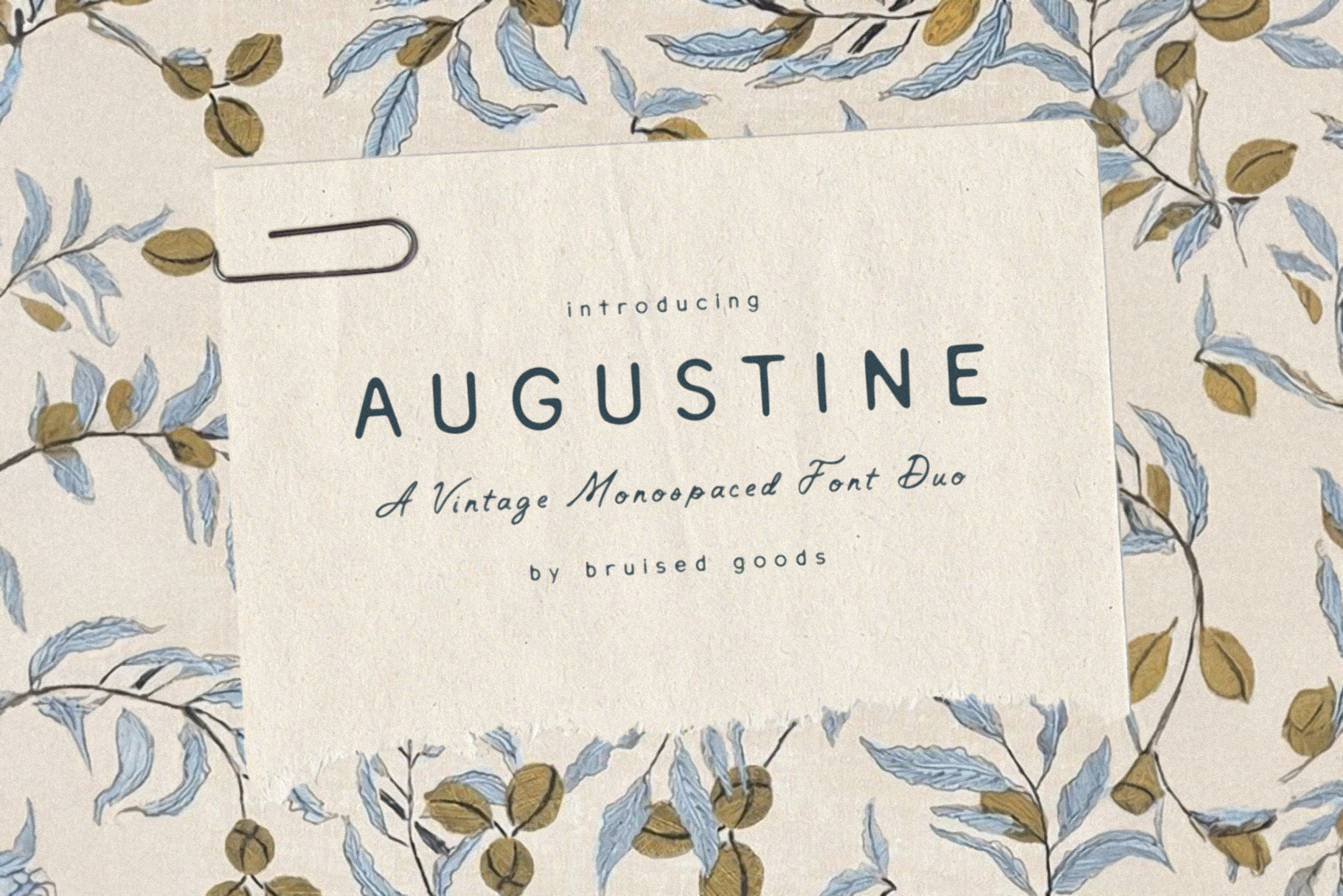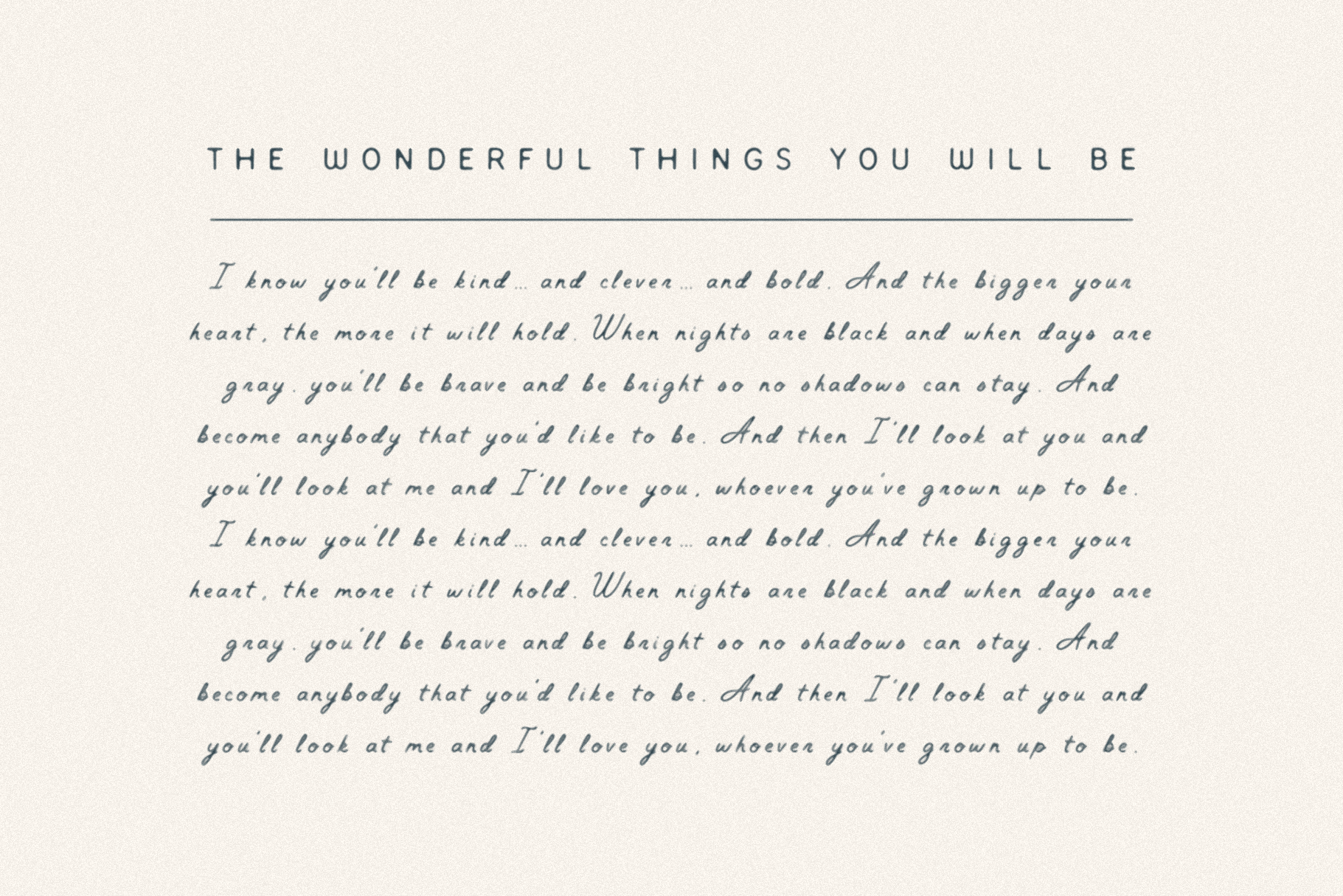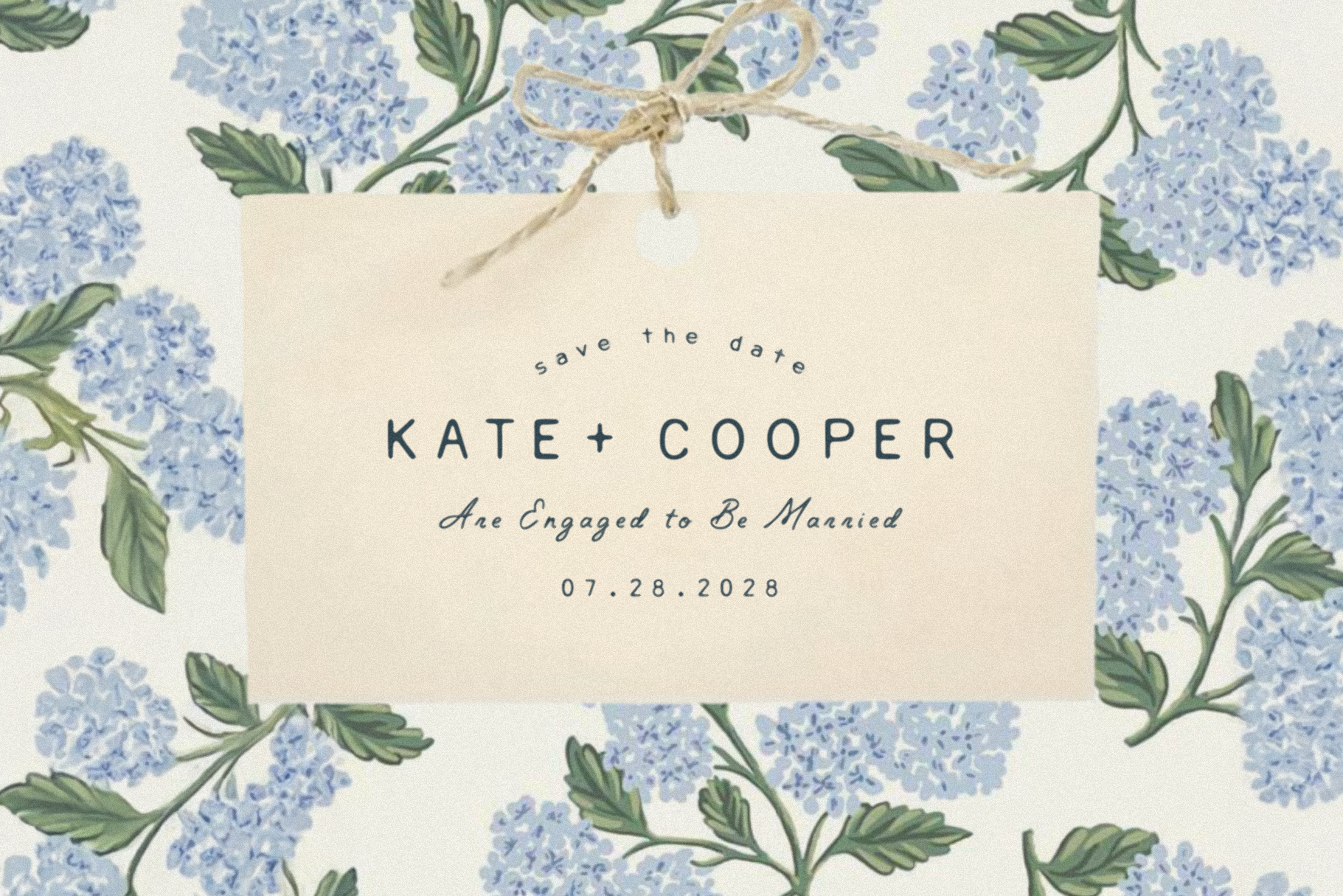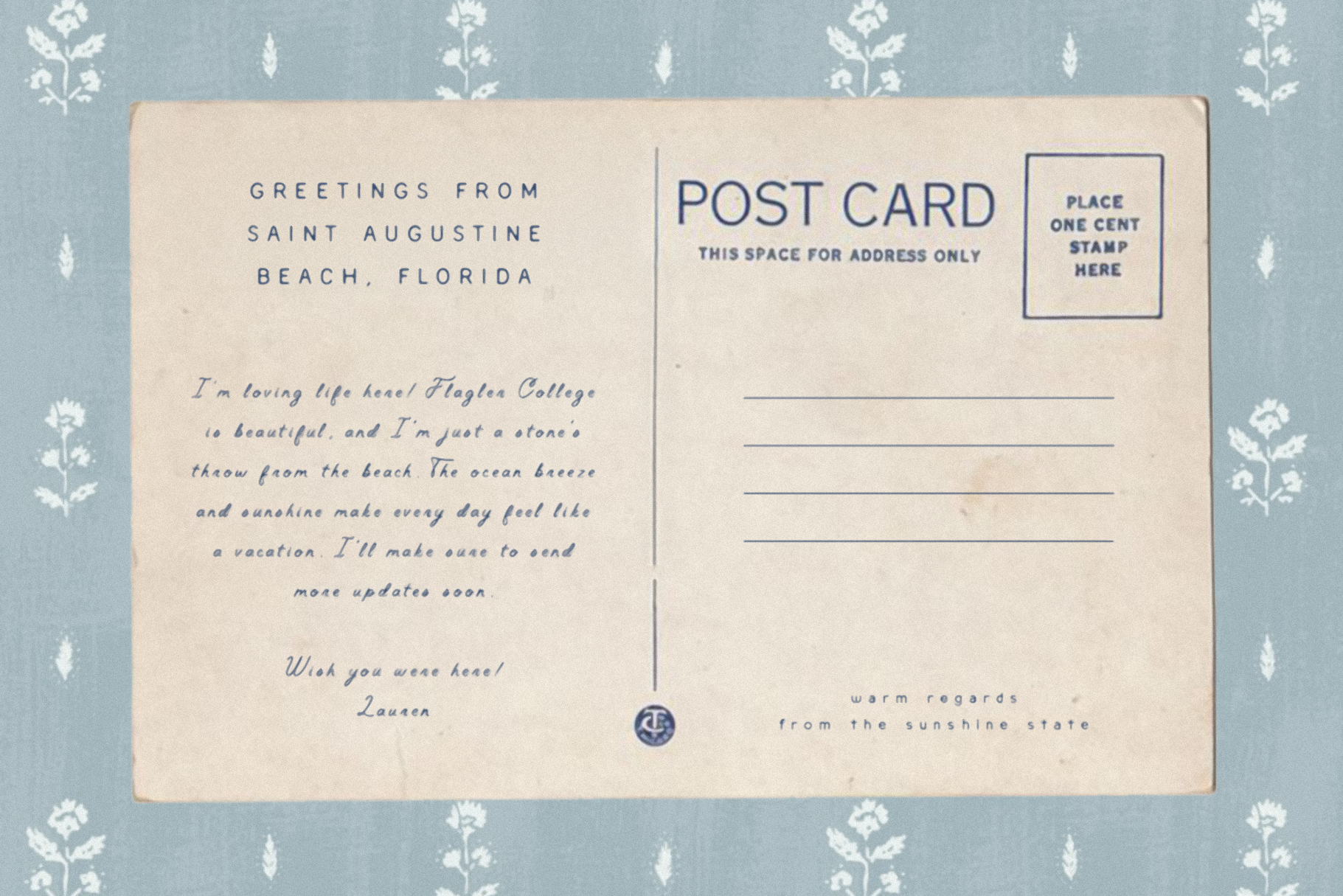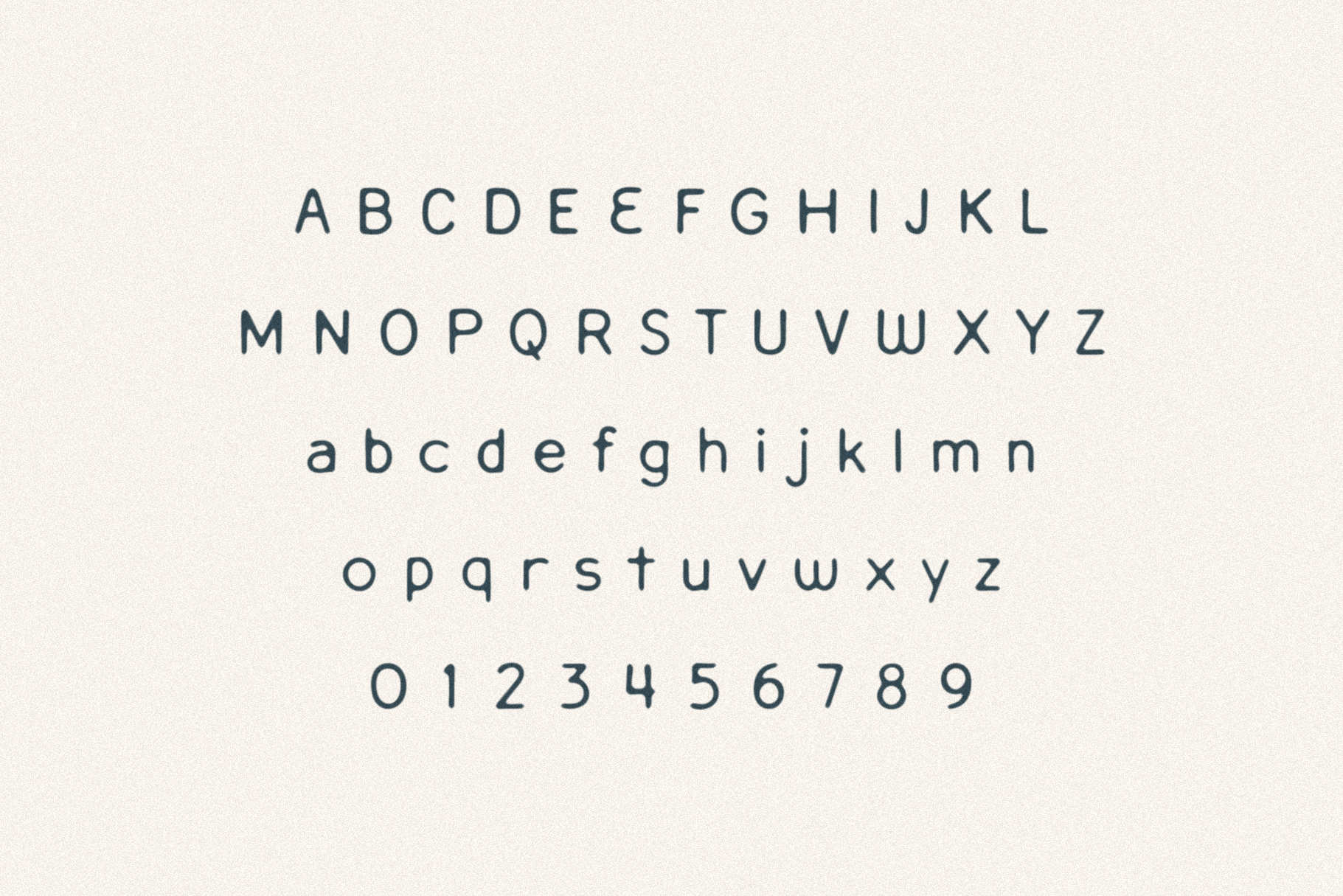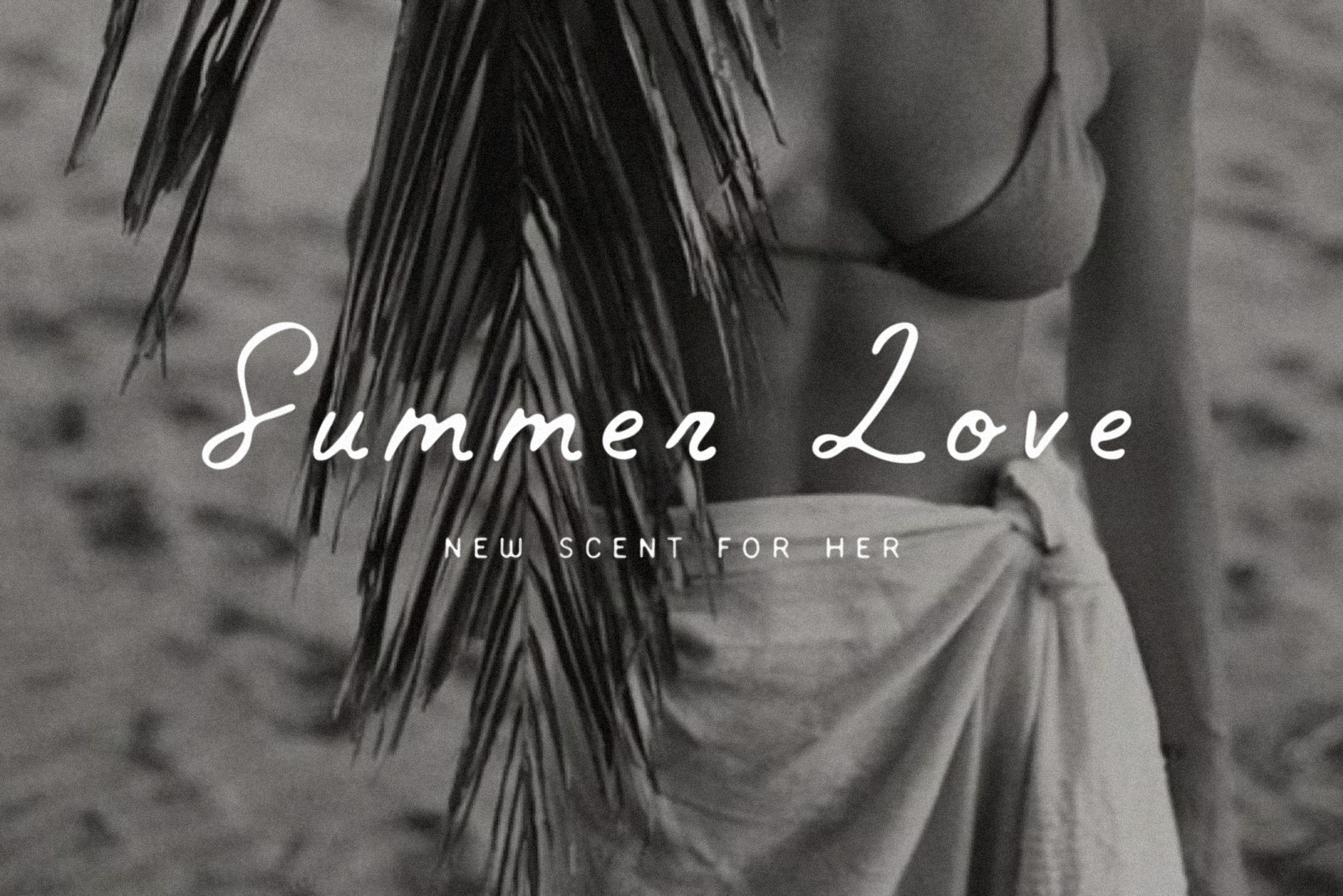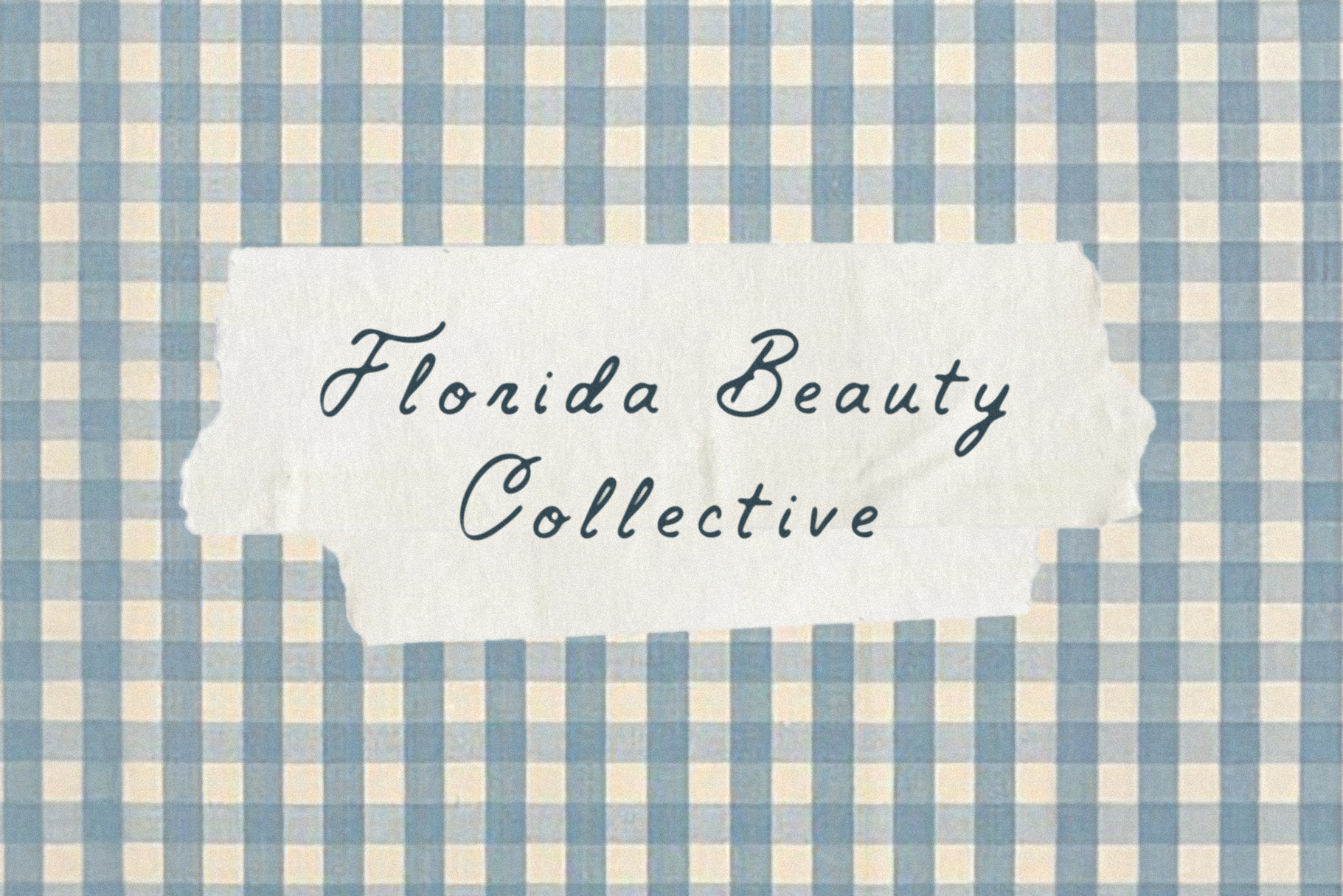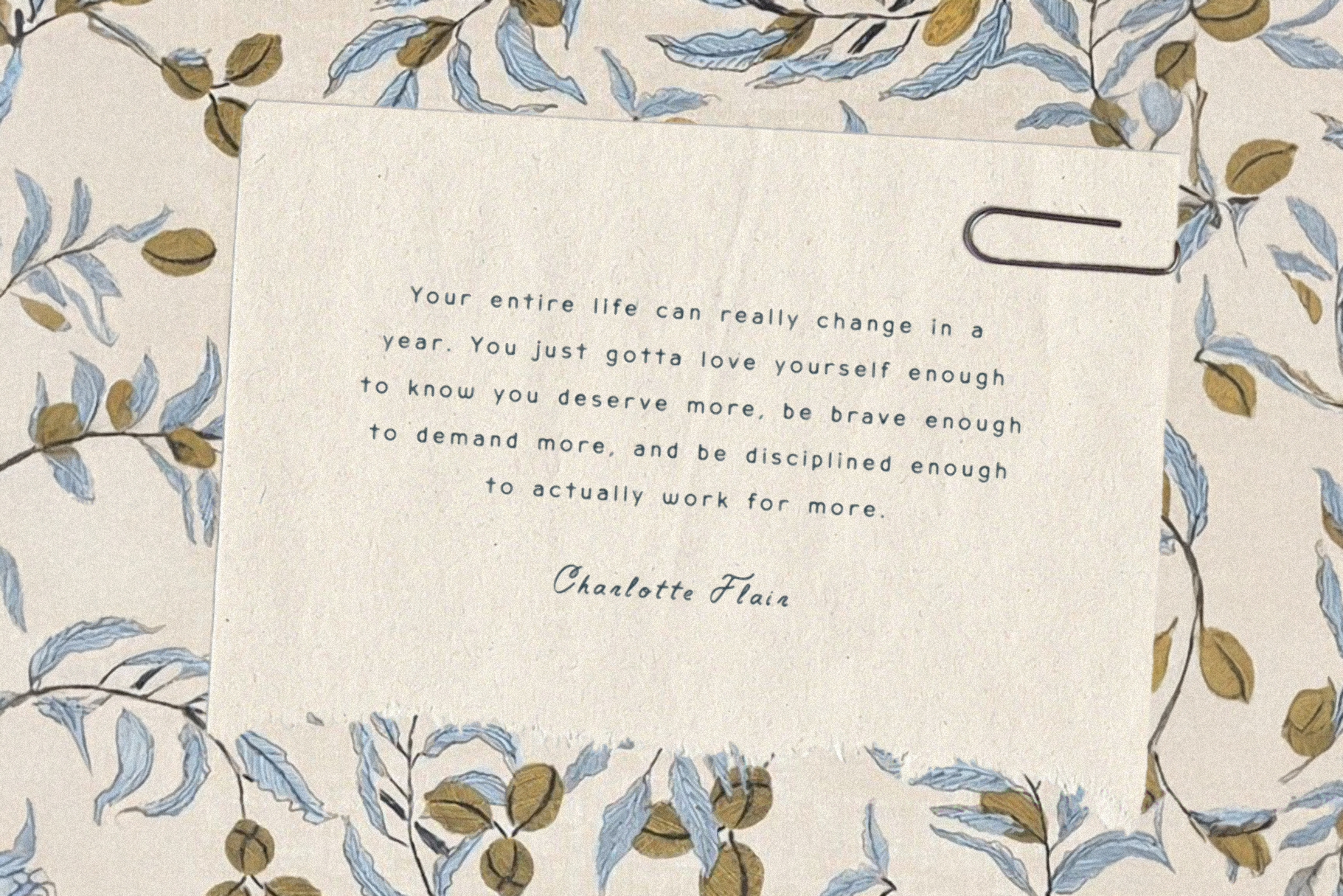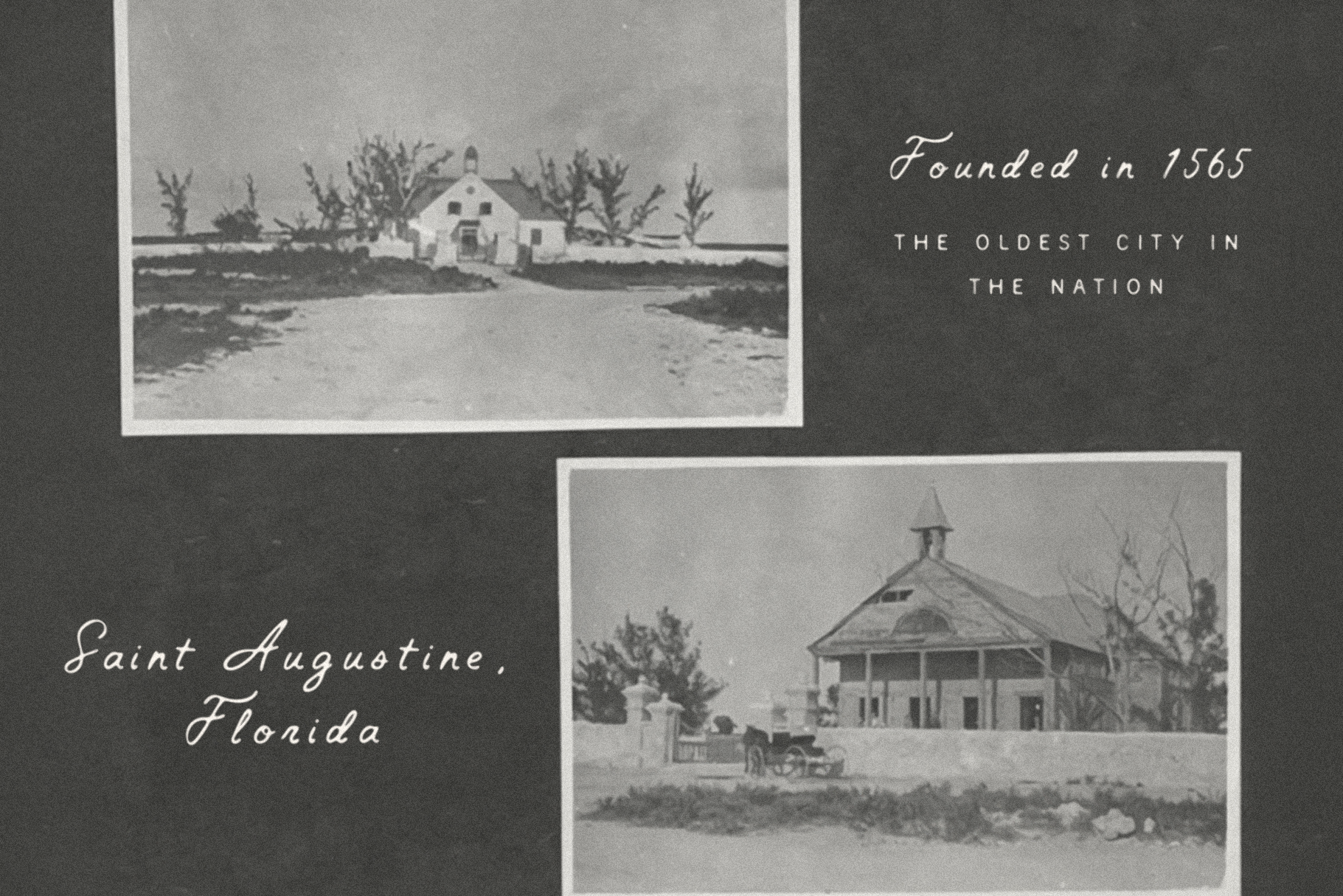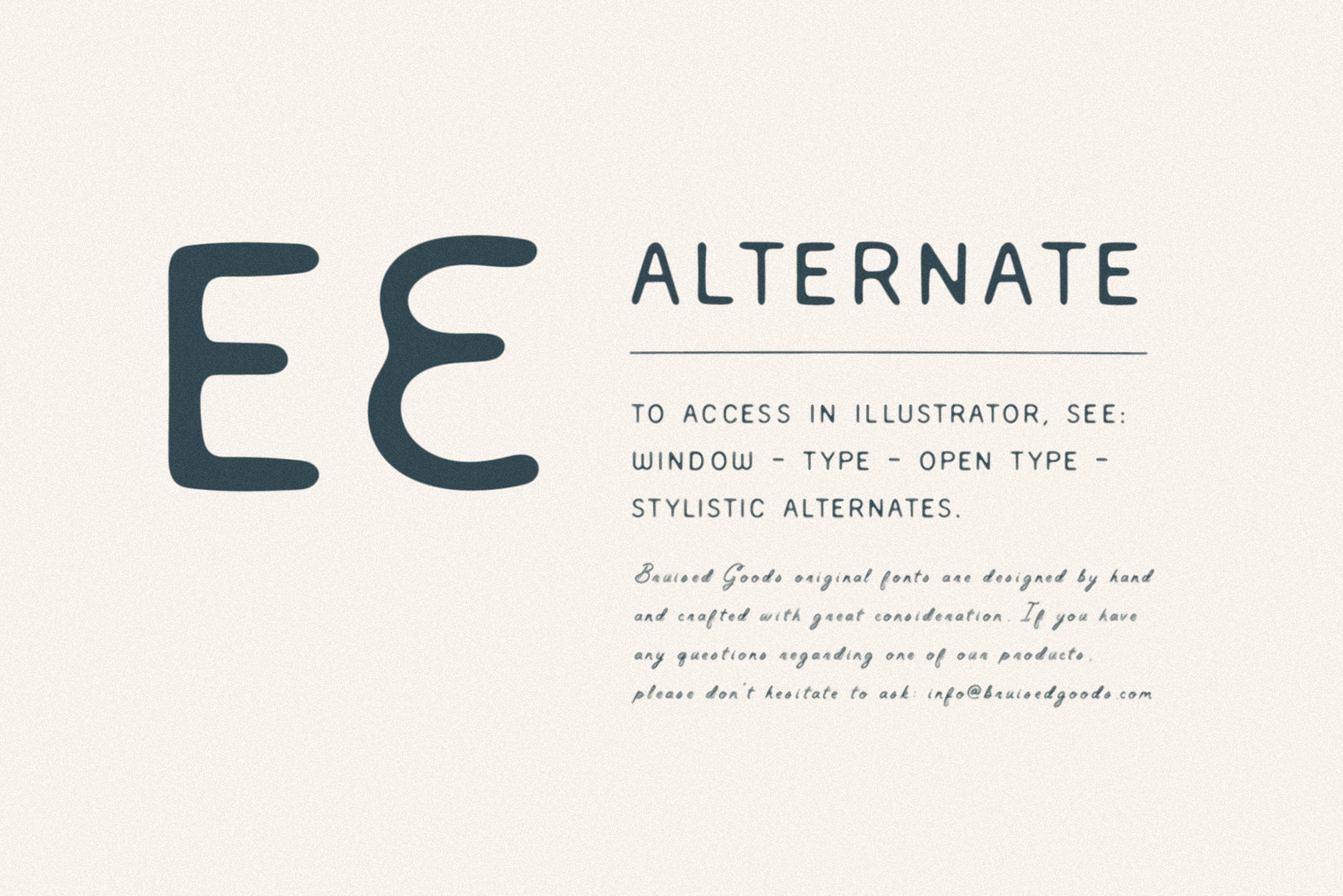
Augustine
AUGUSTINE – A vintage monospaced font duo. Inspired by the oldest city in the nation, Saint Augustine, Florida. Handcrafted by Bruised Goods.